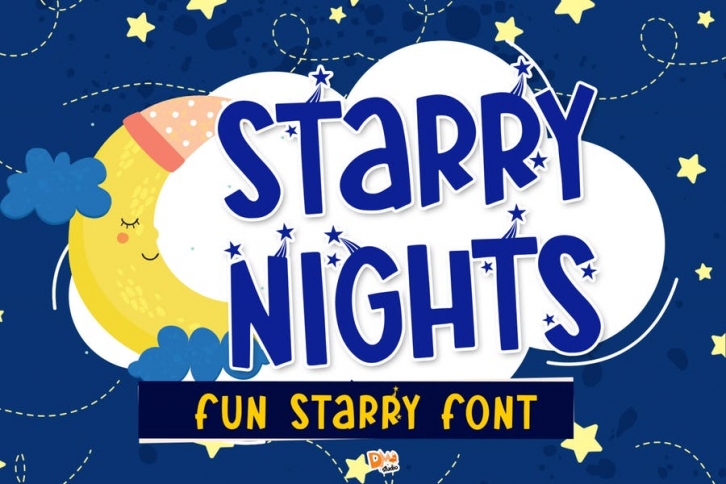
Starry Nights, the fun-starry font!
Starry Nights is a fun sans serif font, included a popping stars, inspired by the shooting star in the sky!
Get creative using this crafty handmade typeface, great for your diy projects, birthday or holiday greeting cards, wall arts, tshirt, sticker and more!
- Uppercase ( with stars )
- Lowercase ( plain )
- Symbols